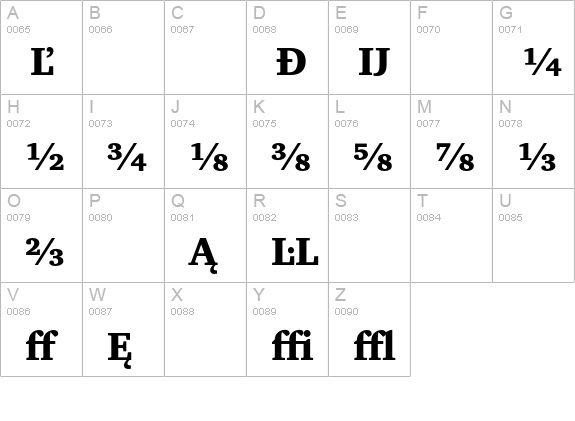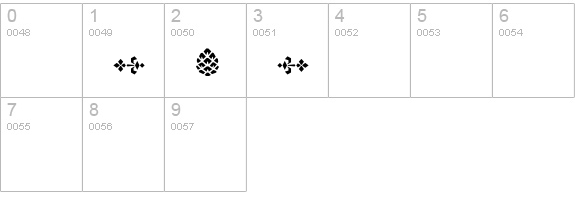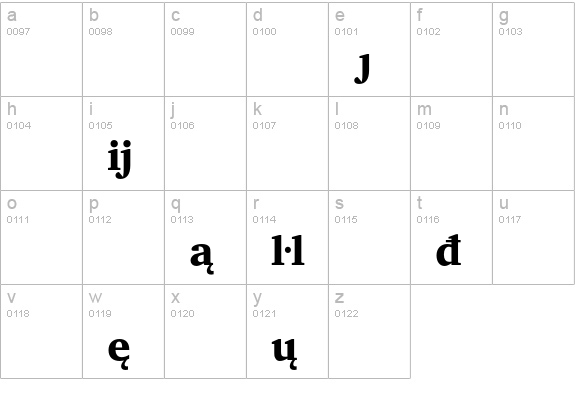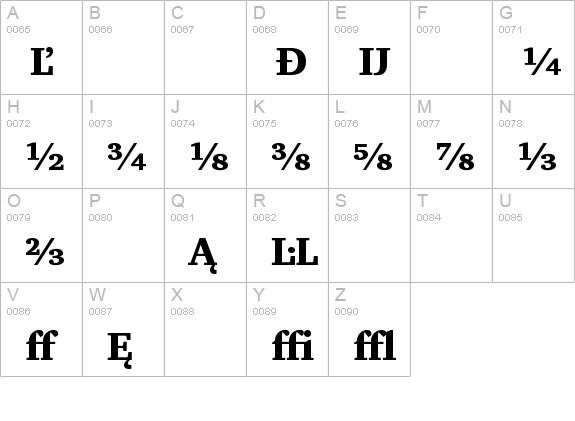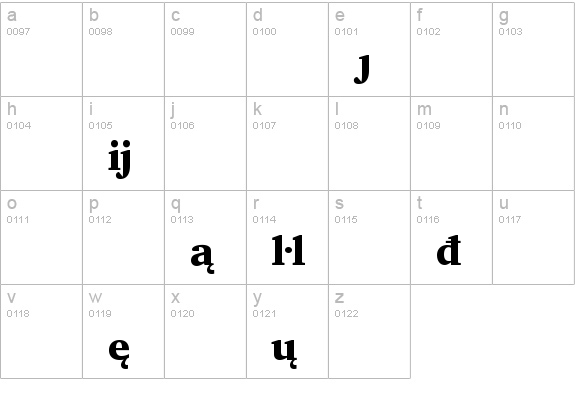
Charter Black Extension is a maximum-weight, dramatic variant in the Charter typeface family \xE2\x80\x94 well suited to maximum-impact headlines, posters, and packaging.
Charter Black Extension is a bold and elegant font that exudes sophistication and professionalism. With its sleek lines and strong presence, this typeface is perfect for making a bold statement in any design project. The extended glyphs add a unique touch to the overall aesthetic, making it stand out from the crowd. What makes Charter Black Extension even more appealing is that it is available for free download at FontsMarket.com. This means that you can easily access this premium font without any cost, allowing you to elevate your designs without breaking the bank. Whether you're creating branding materials, posters, or website headers, Charter Black Extension is sure to make a lasting impression. Download it today and add a touch of elegance to your projects.